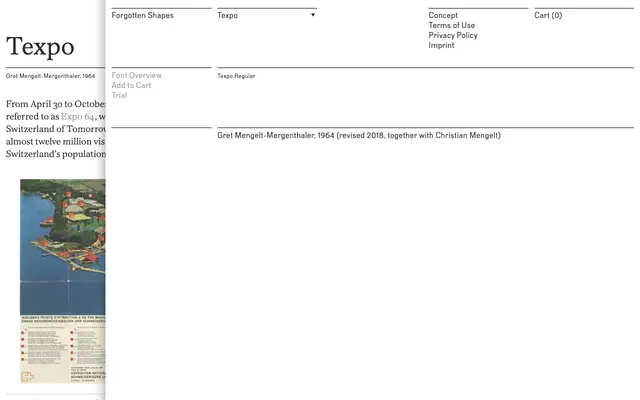
Texpo
Forgotten Shapes · Gret Mengelt-Mergenthaler · 1964
A revival of a typeface originally designed by Gret Mengelt-Mergenthaler for the Swiss National Exposition of 1964, revised in 2018 with Christian Mengelt.
Originally created for Expo 64 in Lausanne, this revival recovers a typeface tied to one of Switzerland's most significant post-war public events. The 2018 revision was undertaken together with Christian Mengelt, preserving the original design's mid-century Swiss character. Currently available in a single Regular weight, it sits within the broader Forgotten Shapes project of recovering historically grounded Swiss type.
The name references the Expo 64 context and the page lists it alongside Kleukens-Egyptienne, suggesting a slab or egyptienne classification typical of mid-century Swiss display and text typography.